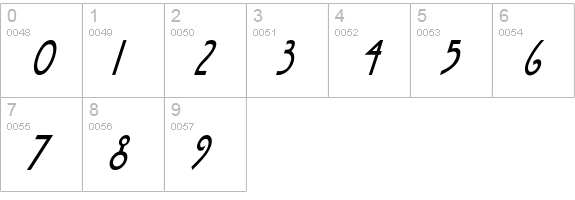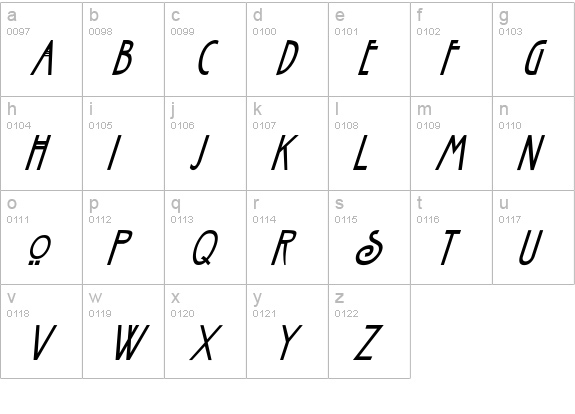
Esmount-Condens Font Details
Esmount-Condens font is a sleek and modern typeface that exudes sophistication and elegance. With its condensed style and sharp lines, this font is perfect for conveying a sense of professionalism and refinement in your design projects. The clean and minimalist design of Esmount-Condens makes it versatile and suitable for a wide range of applications, from branding to editorial design. What makes Esmount-Condens even more appealing is that it is available for free download at FontsMarket.com. This means that you can easily access this high-quality font without any cost, making it a valuable addition to your font collection. Whether you are a designer looking to elevate your projects or a business in need of a stylish typographic solution, Esmount-Condens is a fantastic choice that won't break the bank. Download it today and elevate your designs with this stunning and freely available font.